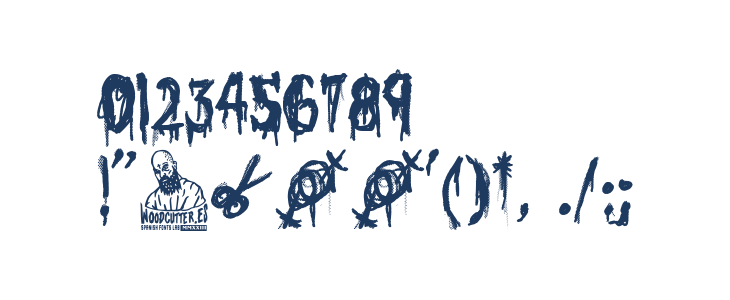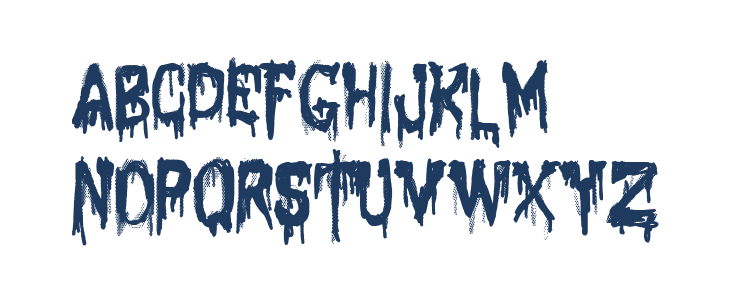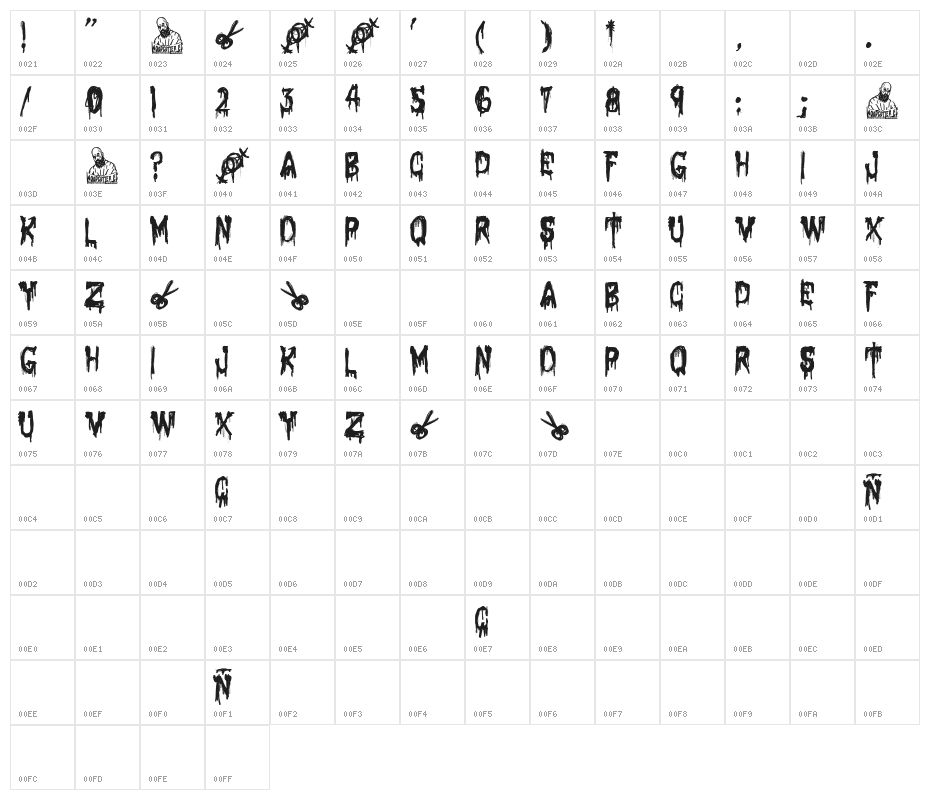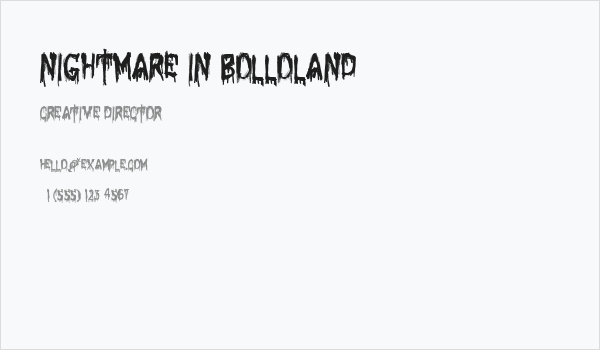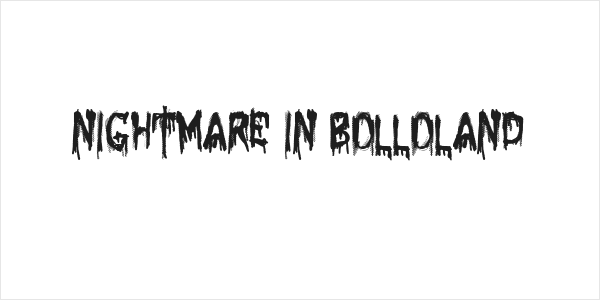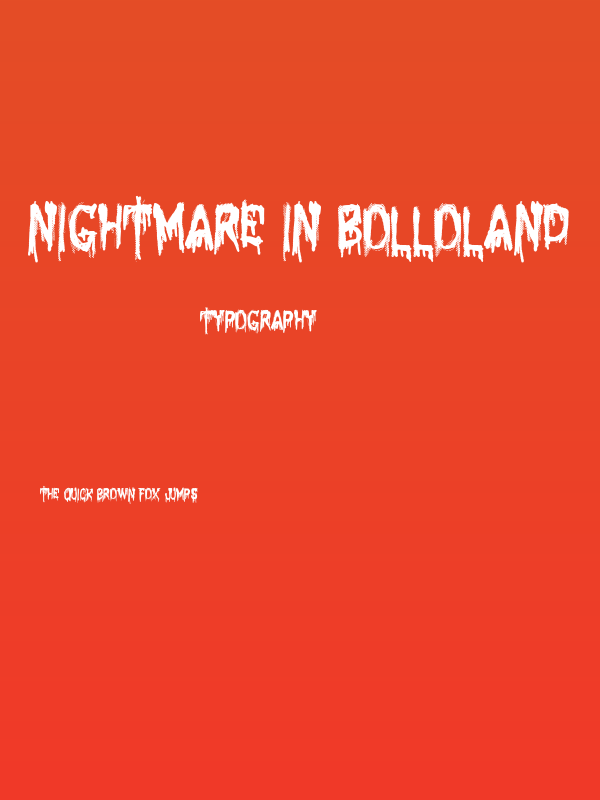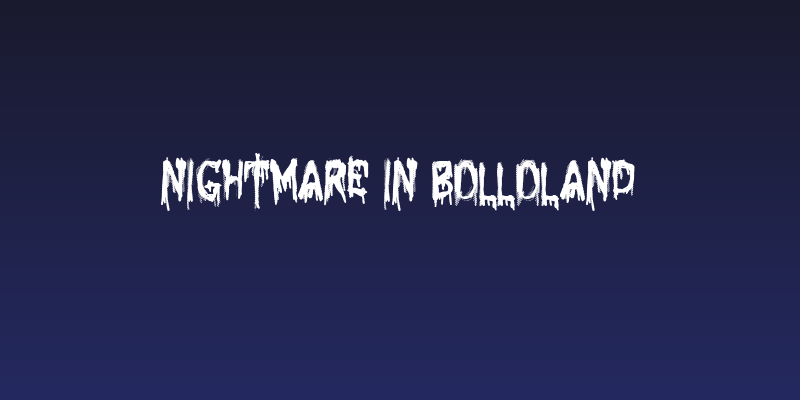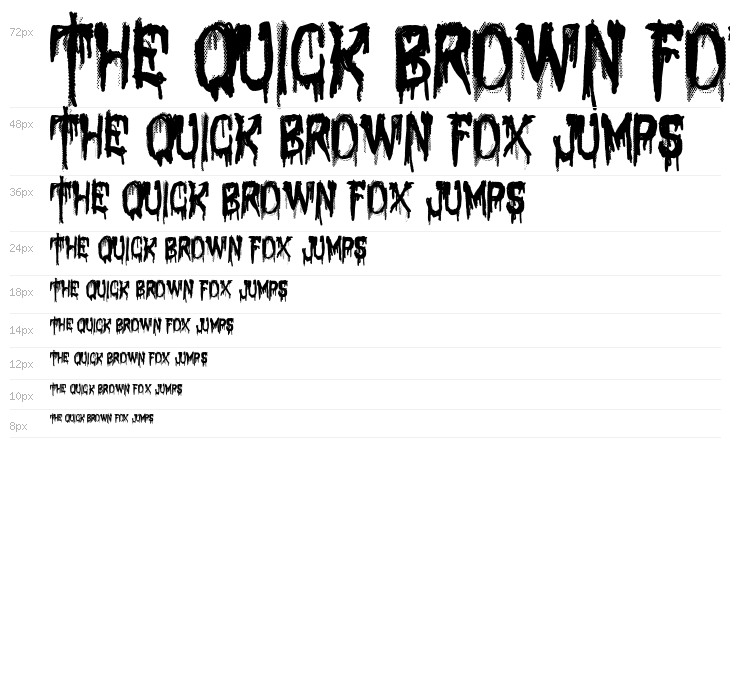
Nightmare in Bolloland Font
Nightmare in Bolloland Description
A highly decorative, horror-themed display font with dripping, irregular strokes and a distressed texture, evoking a sense of fear and chaos. The characters are bold, uneven, and appear as if they are melting or bleeding, making it visually striking and unsettling.
| Overall Style | Decorative, Horror, Grunge |
| Use Case | Headlines, Posters, Logos, Event Titles |
| Proposed Projects | Halloween posters, horror movie titles, haunted house flyers, spooky event branding, themed party invitations. |